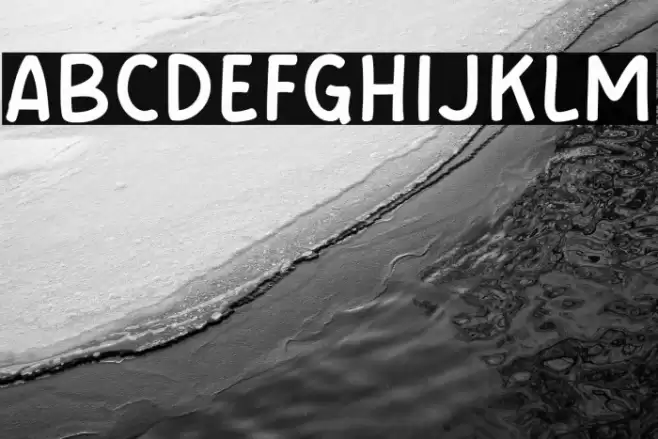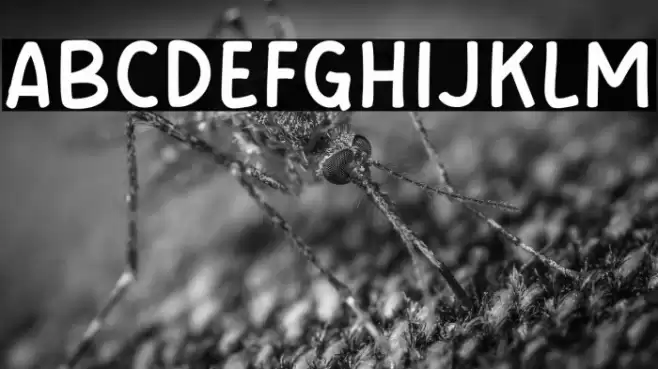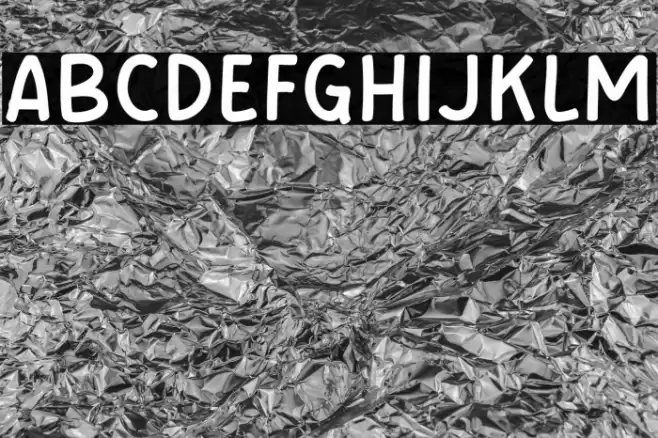
Cute Sunrise Font
Cute Sunrise Description
This font features a playful and rounded style, characterized by its smooth curves and friendly appearance. The letters are bold and slightly irregular, giving it a hand-drawn feel that adds a touch of whimsy and warmth. The uppercase and lowercase letters maintain a consistent style, with rounded edges and a uniform thickness that enhances readability. Numbers and special characters are designed to match the playful aesthetic, making them suitable for a variety of creative applications. The overall look is approachable and fun, ideal for projects that require a personal touch.
A playful, rounded font with a hand-drawn feel and friendly appearance from Uncategorized fonts.
- Font: Cute Sunrise
- Proposed Projects: Ideal for children's books, playful branding, greeting cards, and casual invitations.
- Overall Style: Playful
- Use Case: Headlines, Logos, Informal Text